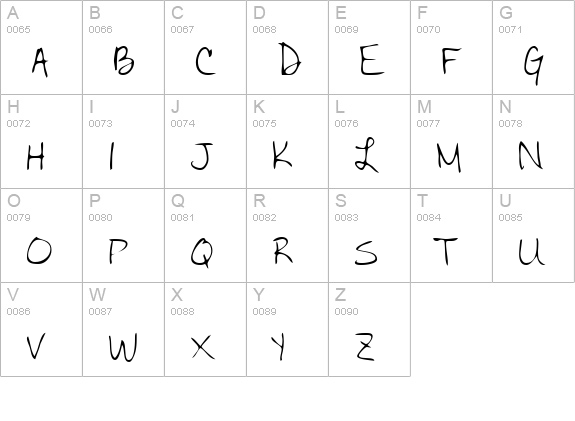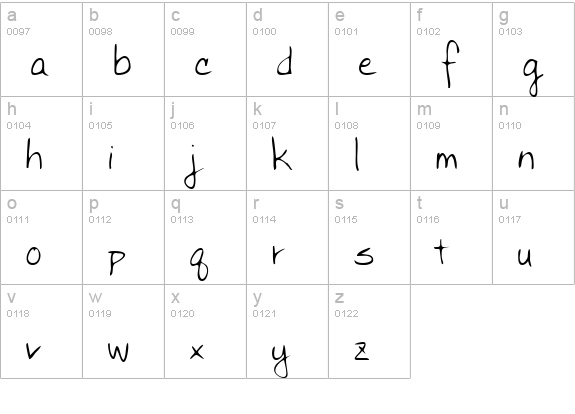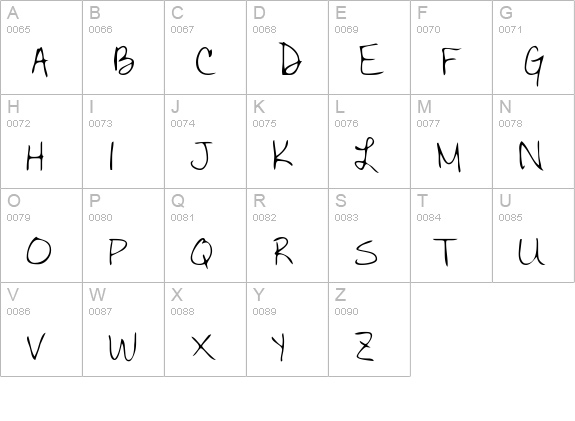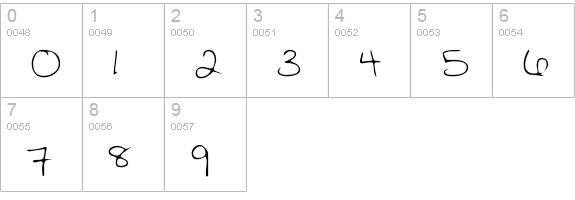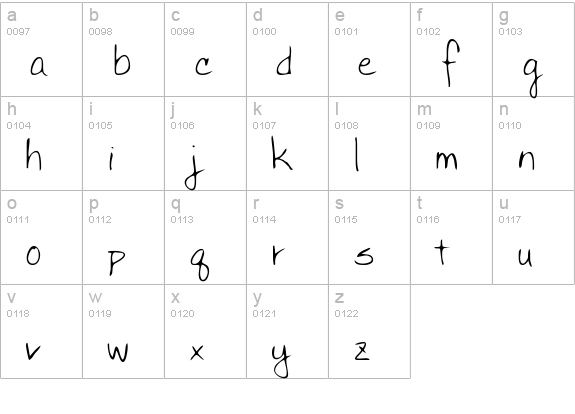
BettysHand Regular is the standard, neutral variant in the BettysHand typeface family \xE2\x80\x94 well suited to general body text, paragraphs, and standard typographic work.
BettysHand Regular is a charming and whimsical handwritten font that exudes a sense of creativity and playfulness. With its elegant and flowing strokes, this font is perfect for adding a personal touch to your projects. Whether you're designing invitations, greeting cards, or social media graphics, BettysHand Regular will bring a unique and handcrafted feel to your work. The best part? BettysHand Regular is available for free download at FontsMarket.com. This means you can easily access this delightful font and start using it in your designs without any cost. Don't miss out on the opportunity to enhance your projects with the beauty and character of BettysHand Regular - download it now and let your creativity shine!